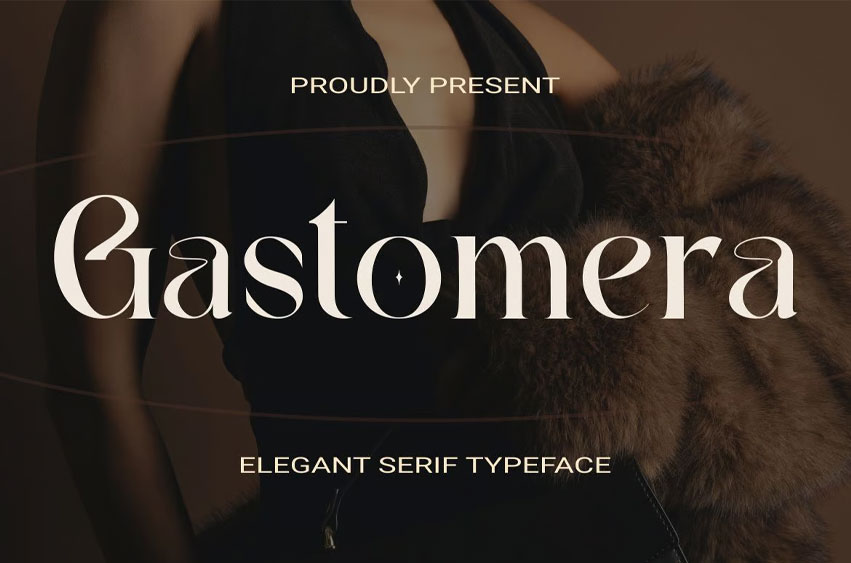
Gastomera Font
Gastomera Font is a stylish, modern serif typeface, designed to give a sense of exclusivity and elegance to every design work. This typeface features a strong visual contrast between thick and thin lines, with unique and expressive letterforms. Artistic details on letters such as G, a, s, v, w, and y make each character stand out and full of character.